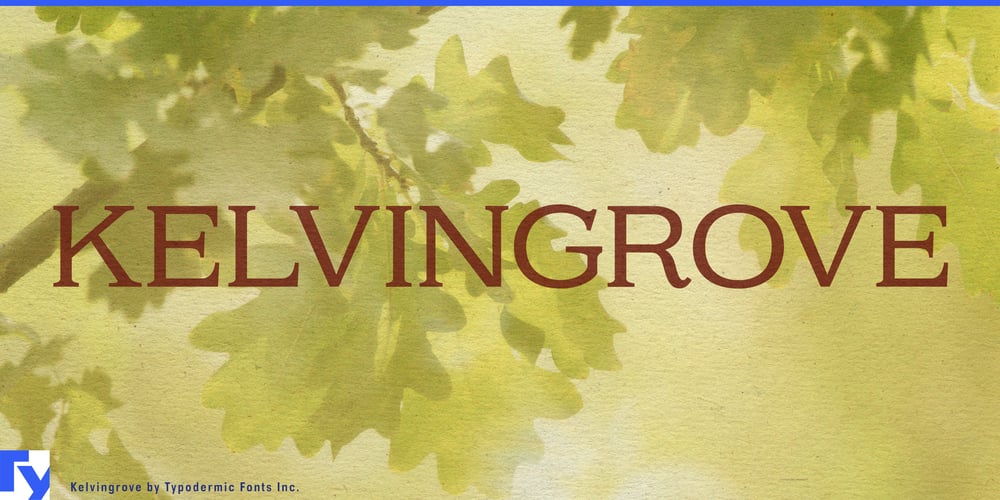
Kelvingrove Font Family was designed by Ray Larabie and published by Typodermic. Kelvingrove contains 1 styles and family package options. Kelvingrove emerges as a refined small-cap typeface that marries the timeless elegance of Copperplate style with contemporary design sensibilities. This sophisticated font family strikes a delicate balance between classic charm and modern functionality, offering designers a versatile tool for creating impactful, legible, and visually striking compositions.At its core, Kelvingrove draws inspiration from the venerable Copperplate tradition, but it doesn’t merely imitate—it innovates. The typeface’s slab serif design enhances its legibility, making it exceptionally readable even at smaller sizes. This quality ensures that Kelvingrove performs admirably across a wide range of applications, from headlines and captions to body text, maintaining its distinct personality without sacrificing clarity. What truly sets Kelvingrove apart is its thoughtful integration of OpenType features. The alternate versions of K, Q, R, and a small ampersand, accessible via stylistic alternates in supporting applications, offer designers an extra layer of creative control. These subtle variations allow for fine-tuning of the typeface’s character, enabling it to adapt to different tones and contexts while maintaining a cohesive overall look.Kelvingrove’s attention to detail extends to its numerals, which are meticulously balanced to work harmoniously with both caps and small caps. This consideration ensures that the typeface maintains its elegant proportions across all elements, creating a seamless visual flow that enhances the overall design. The typeface’s linguistic versatility is equally impressive. Supporting a wide array of Latin-based European writing systems, Kelvingrove stands ready to communicate with sophistication across borders and cultures. From the bustling streets of Berlin to the historic squares of Kraków, from the cafés of Paris to the boardrooms of Stockholm, Kelvingrove articulates its message with consistent elegance and clarity. Kelvingrove finds its natural habitat in designs that demand a touch of gravitas without sacrificing modern appeal. It’s the perfect choice for upscale branding, elegant editorial layouts, sophisticated packaging, and formal invitations. In the digital realm, it can elevate user interfaces, lending a sense of refinement to web designs and mobile applications.Embrace Kelvingrove, and discover how its unique blend of traditional elegance and contemporary functionality can elevate your design work. The inherent elegance of small caps, combined with Kelvingrove’s slab serif details, creates a texture that is at once refined and distinctly characterful, allowing your designs to speak with a voice that is both authoritative and approachable.